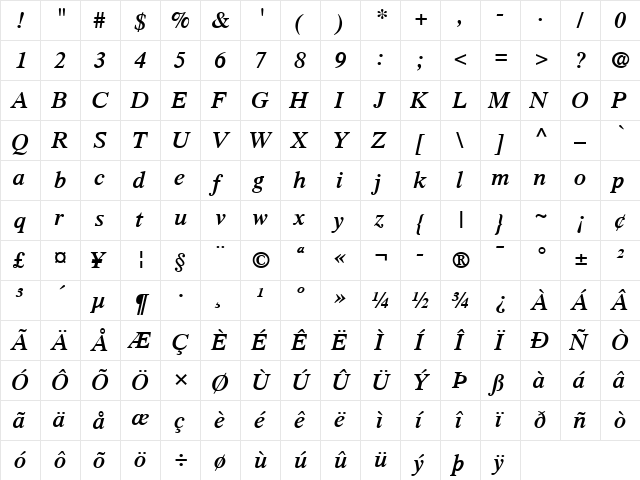
Times LT Semibold Italic
Design Context for Times LT Semibold Typeface
Times LT Semibold offers clean, dependable letterforms without strong stylistic allegiance, making it a practical choice for designers who need flexibility. The slanted form adds forward momentum and visual energy. Its bold stroke weight gives it real presence on the page.
Pro Tip: Try Times LT Semibold for annotation and caption copy alongside an upright companion — the contrast in angle creates a dynamic but ordered typographic system.